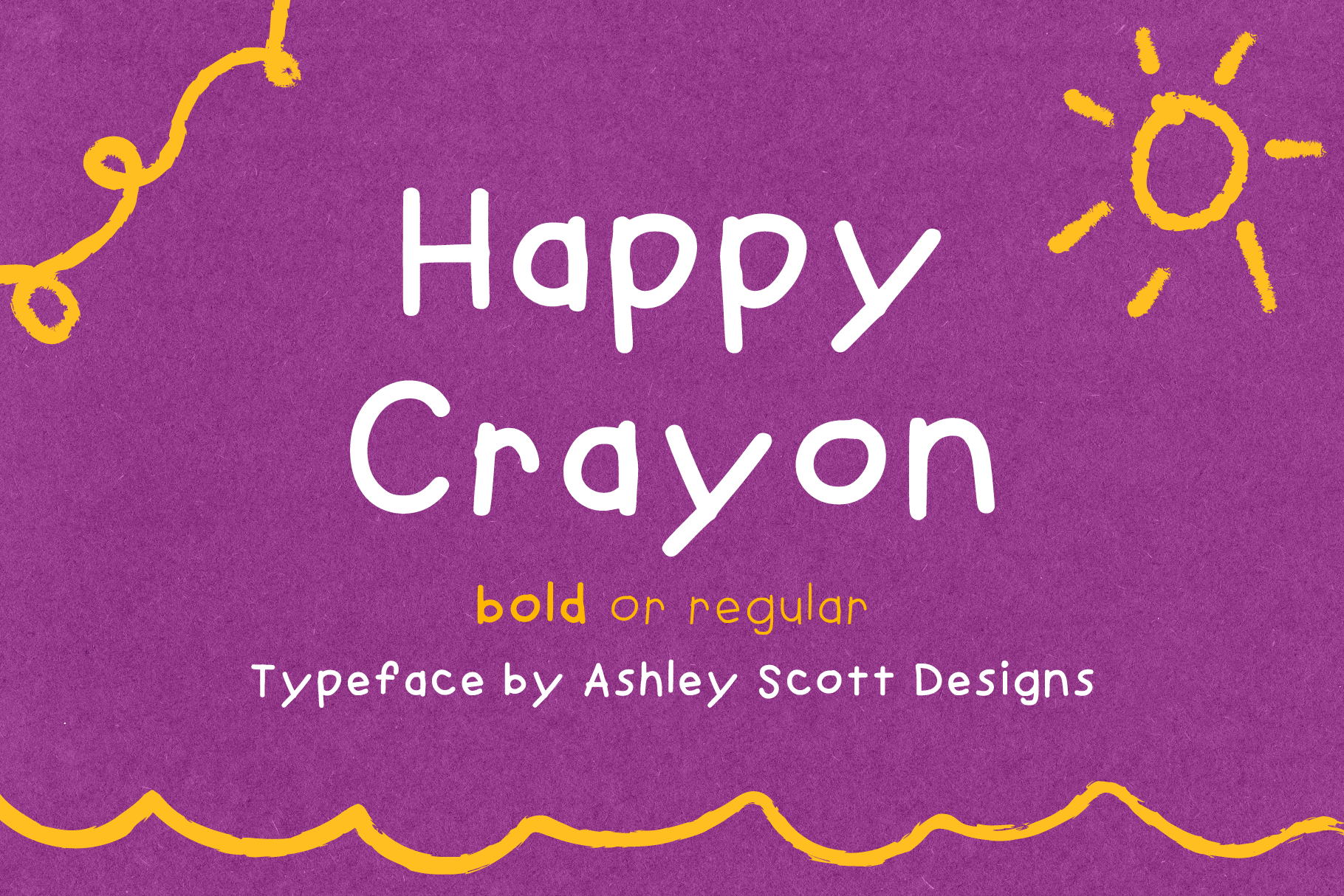
Happy Crayon | Children + Kids Font
Unleash the joy and creativity of childhood with Happy Crayon! This playful font is designed to add a burst of fun to any project. Whether you're crafting for little ones, designing educational materials, or creating a whimsical children's book, Happy Crayon brings a delightful and youthful energy to your work.
Happy Crayon is available in both bold and regular variations.